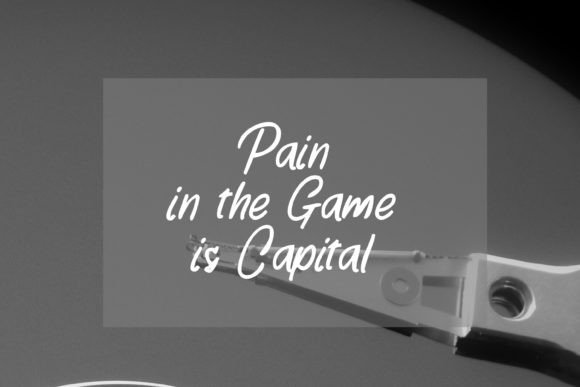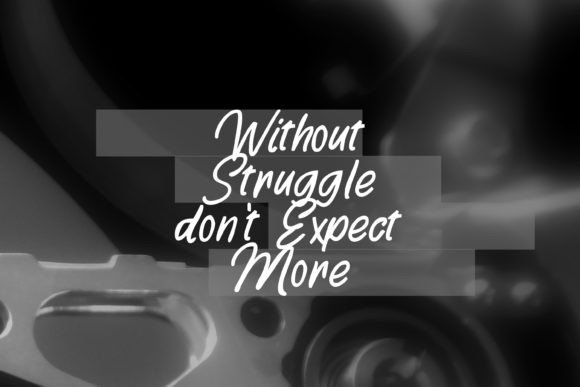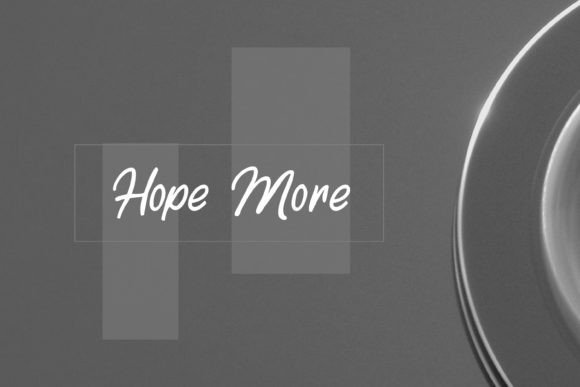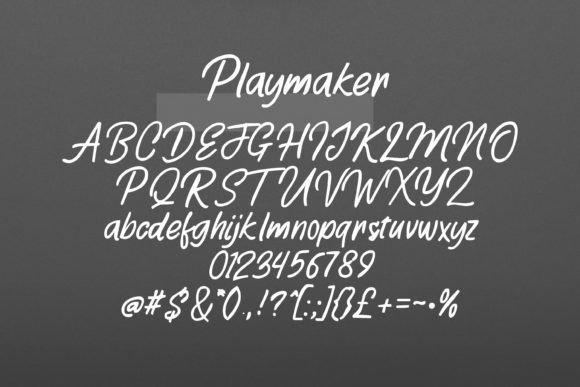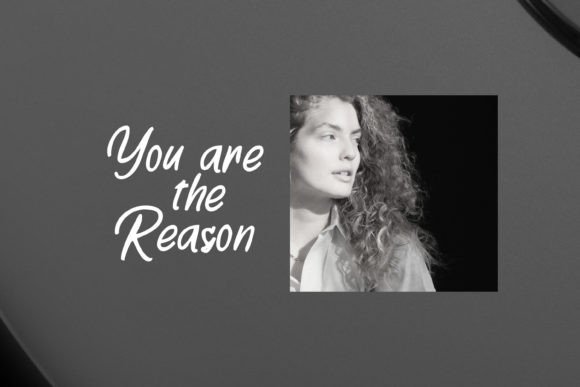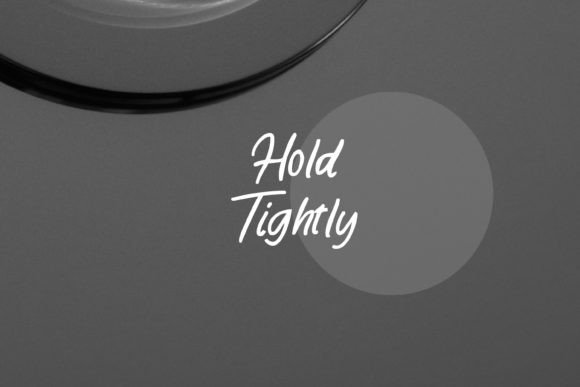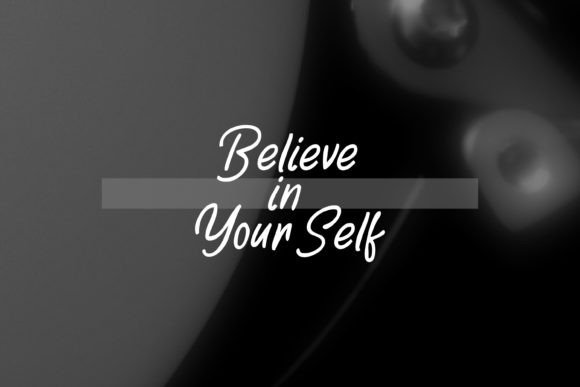
Playmaker Font
“Playmaker” is not your ordinary font—it’s a handwritten gem that adds a personal and expressive touch to your designs. Tailored for social media content or as a vibrant overlay for backgrounds, “Playmaker” brings versatility and flair to any project. Whether you’re aiming for a dynamic presence on social platforms or seeking to enhance labels, logos, magazines, books, packaging, fashion, make-up, stationery, novels, or advertisements, “Playmaker” is your go-to choice.
The handwritten charm of “Playmaker” effortlessly captures the essence of spontaneity and creativity. Its adaptability shines through in its suitability for a wide array of design applications. Social media posts come alive with this font, breathing energy into your words and messages.
The font’s versatility extends to various forms of branding, making it a valuable asset for labels and logos. Magazines and books benefit from its dynamic and readable style, while packaging gains a fresh, contemporary appeal. In the realms of fashion, make-up, and stationery, “Playmaker” injects a sense of trendiness and individuality. Novels and advertising materials, on the other hand, can leverage the font’s unique personality to leave a lasting impression.
“Playmaker” is not just a font; it’s a design tool that allows you to express yourself creatively. The inclusion of PUA coding ensures accessibility to a treasure trove of glyphs and ligatures. This feature gives you the flexibility to explore and experiment, allowing you to customize your text for a truly unique and personalized outcome.
In summary, “Playmaker” is the ultimate choice for those who want to infuse their designs with a handwritten, expressive vibe. Its PUA coding, readability, and dynamic style make it a standout font for a myriad of creative applications. Elevate your design game with “Playmaker” and let your words dance with style and personality.